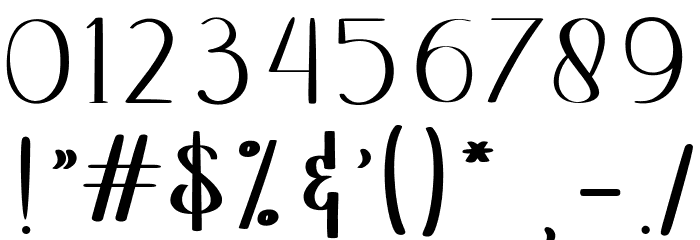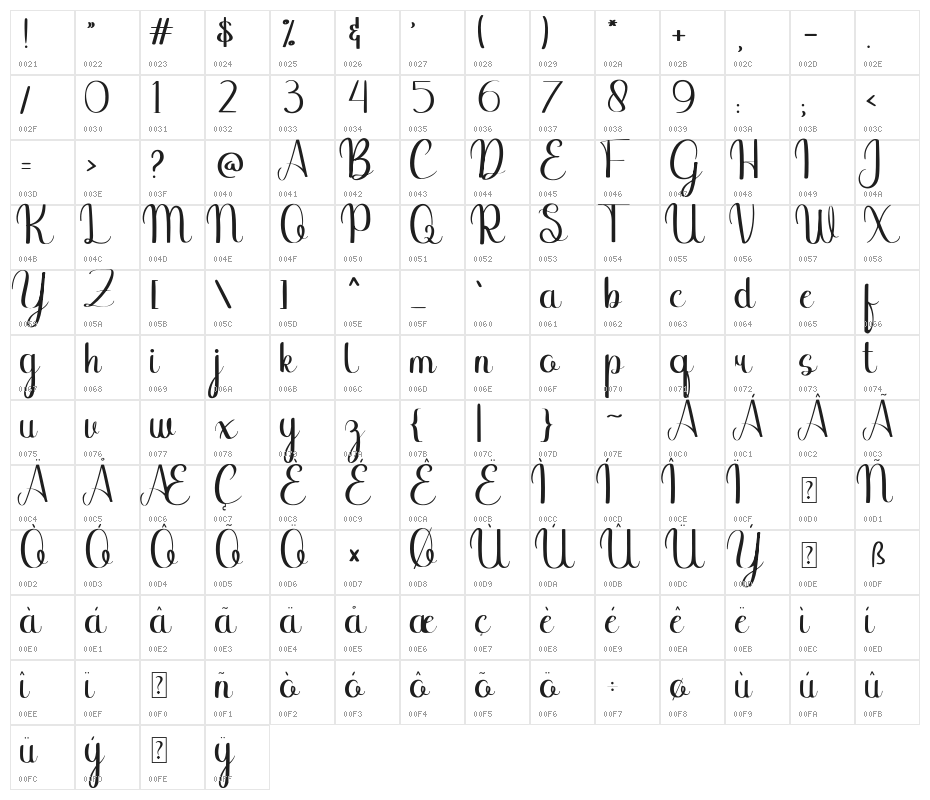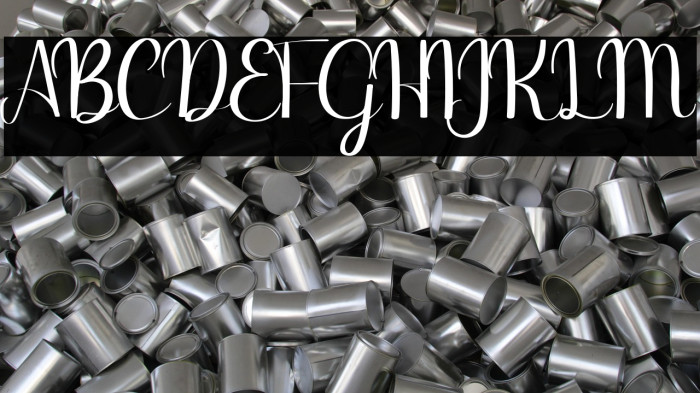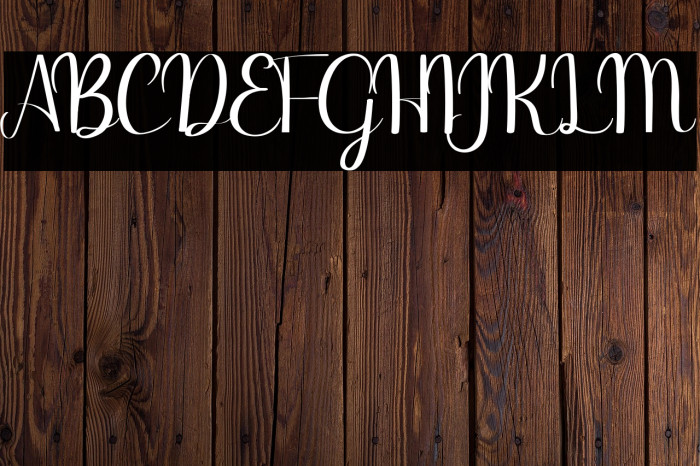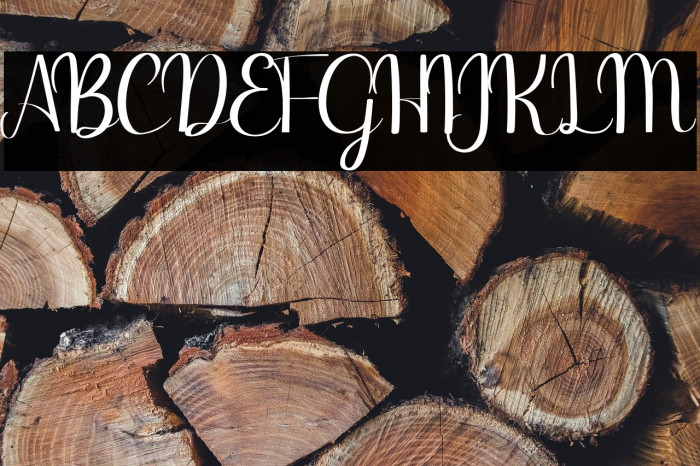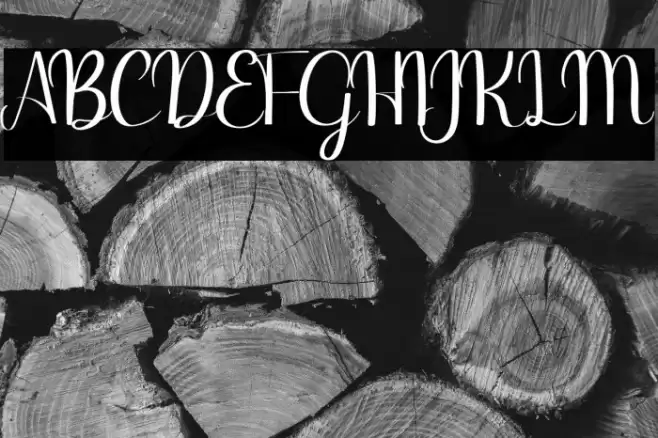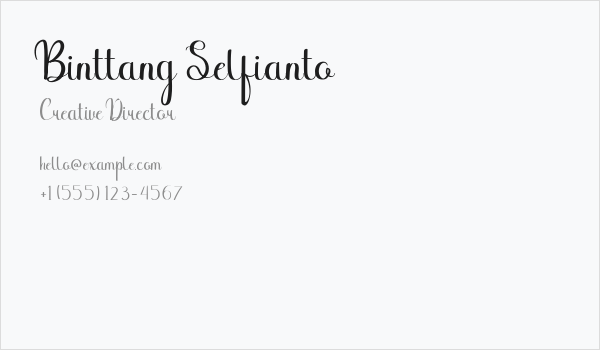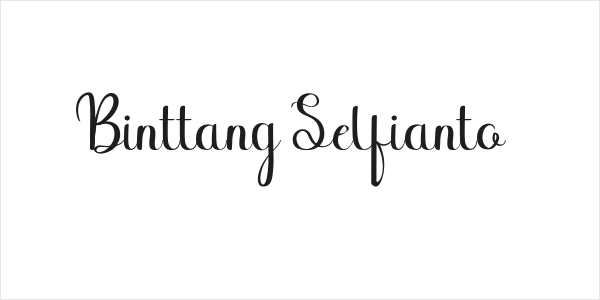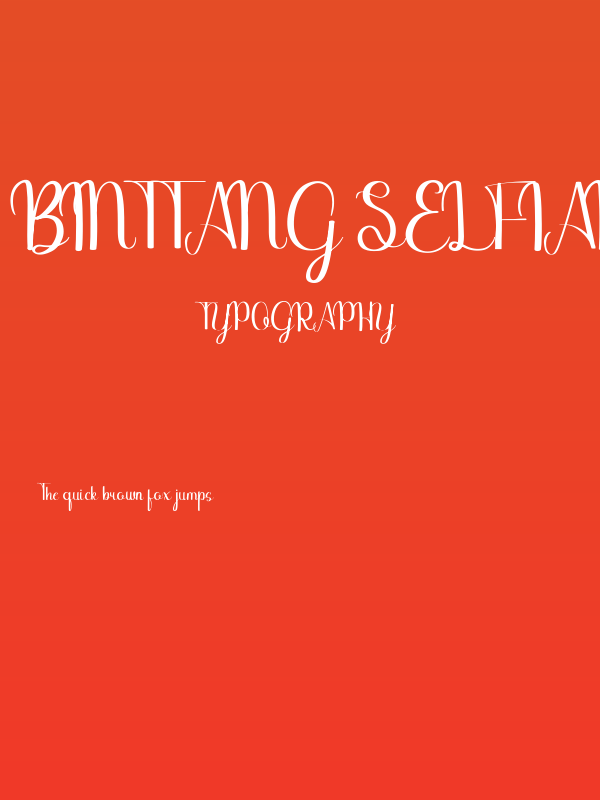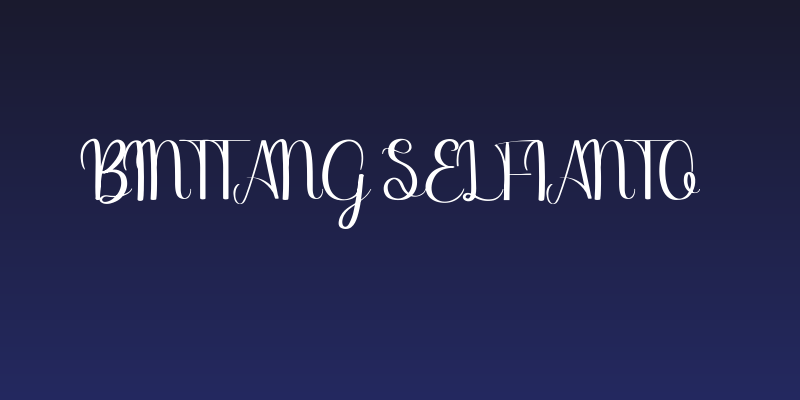
Binttang Selfianto Font
Binttang Selfianto Description
This font features a playful and elegant script style, characterized by its flowing, interconnected letters and smooth curves. The uppercase letters exhibit a graceful flair, with some characters extending slightly beyond the baseline, adding a dynamic touch. The lowercase letters maintain a consistent rhythm, enhancing readability while preserving the font's artistic appeal. Numbers are clear and well-proportioned, matching the overall aesthetic. Special characters are thoughtfully designed to complement the letterforms, ensuring a cohesive look across all text elements.
| Overall Style | Elegant |
| Use Case | Logos, Invitations, Decorative text |
| Proposed Projects | Ideal for wedding invitations, greeting cards, branding projects, and elegant packaging designs. |